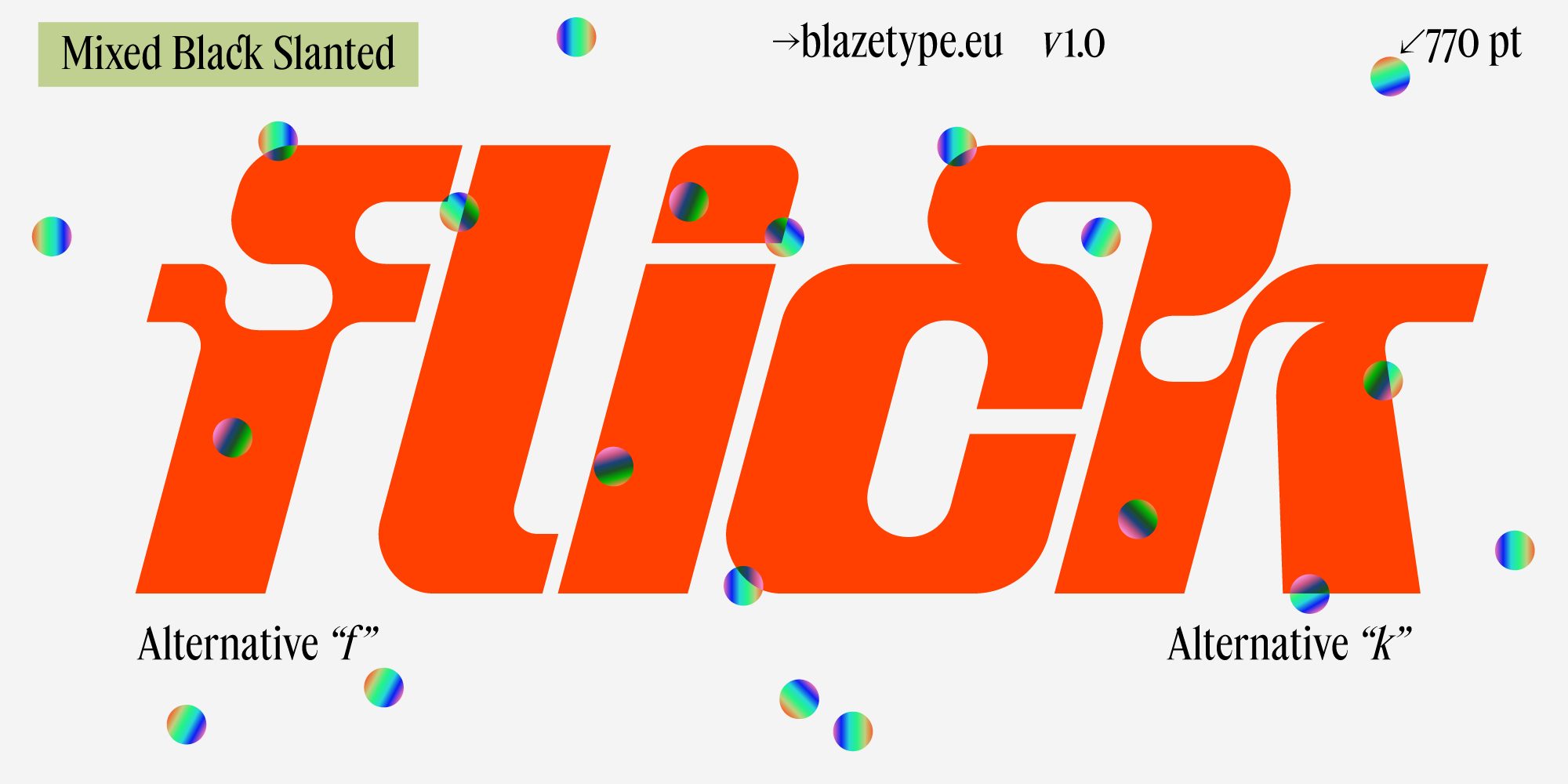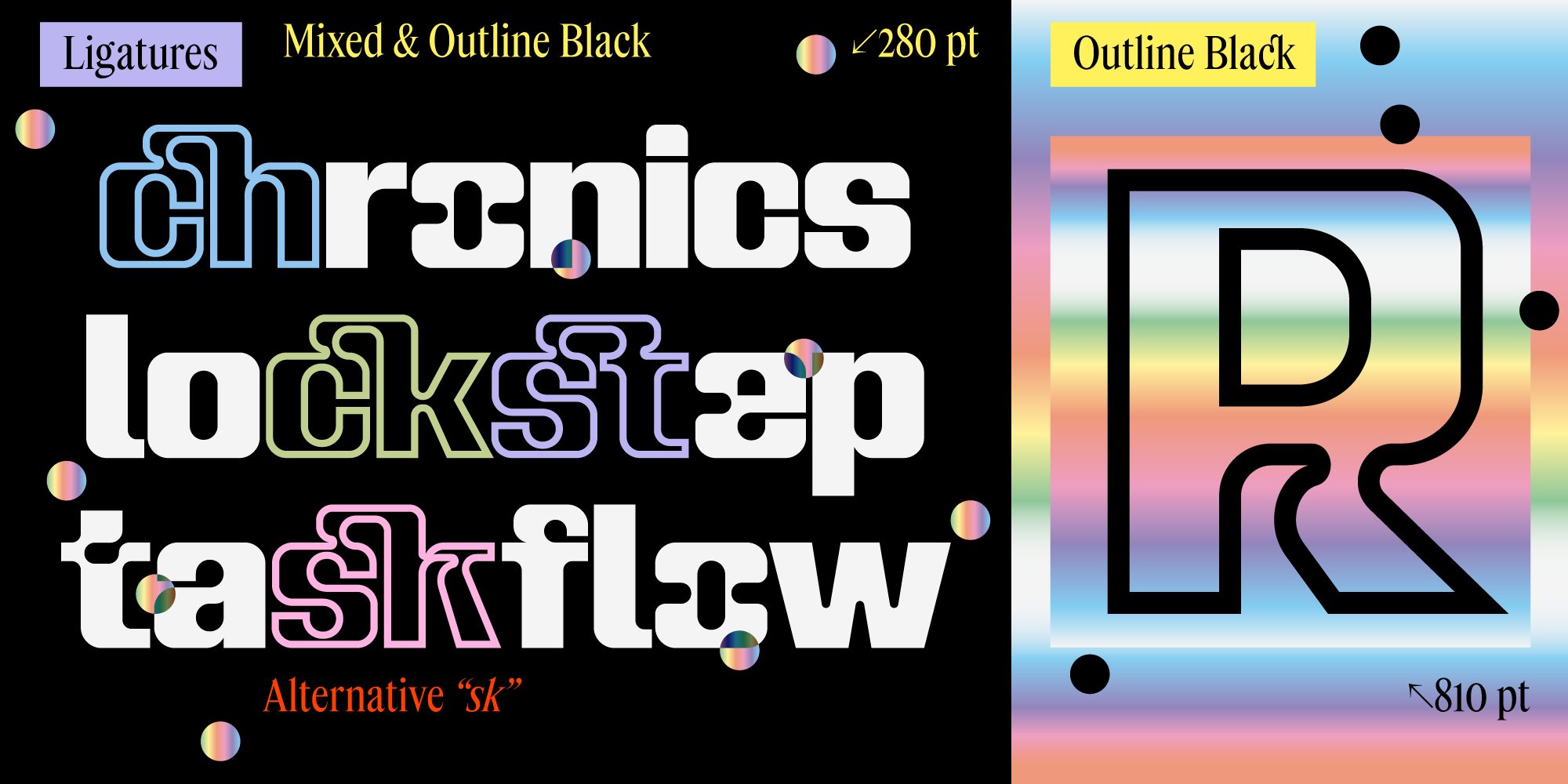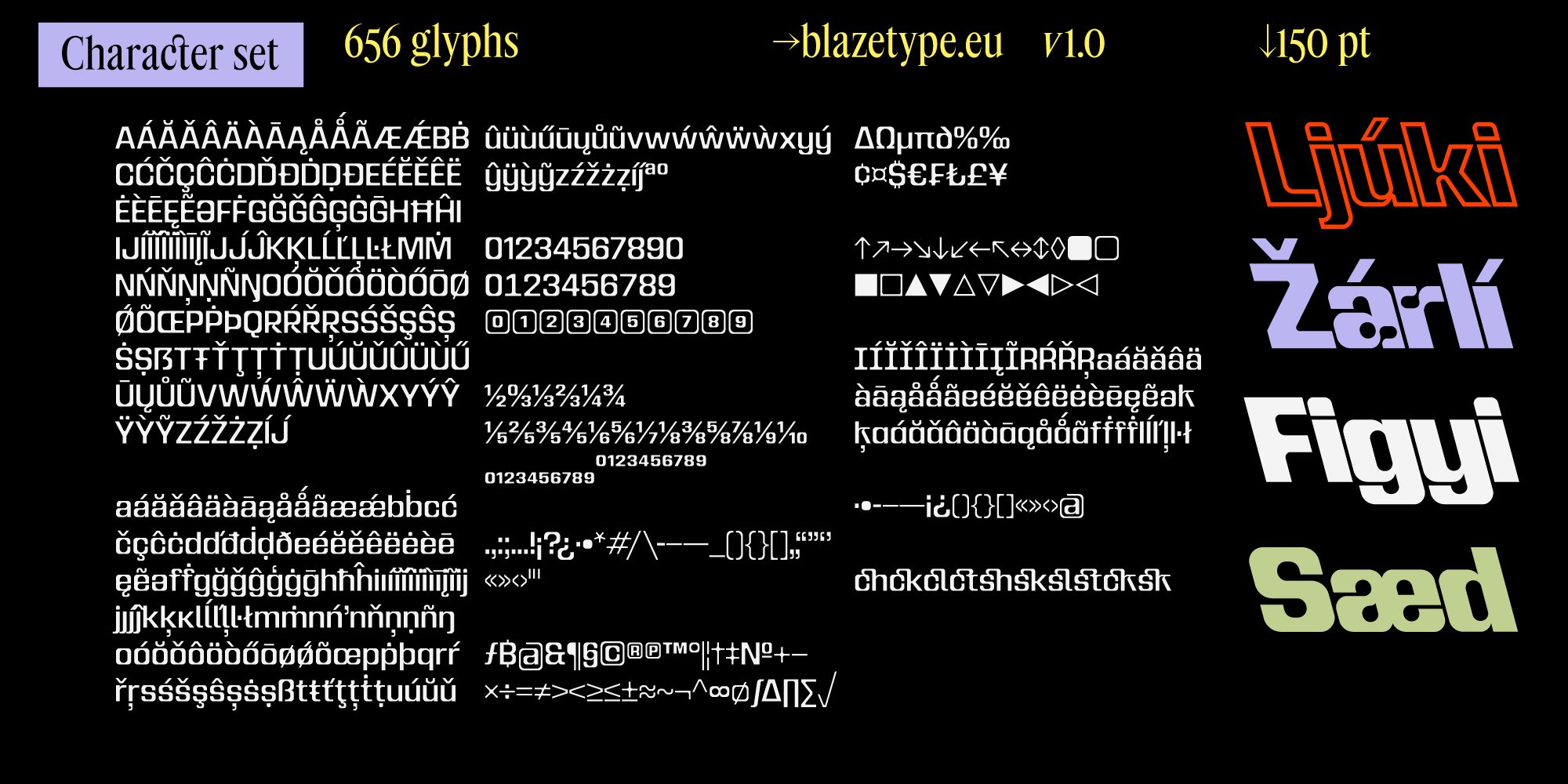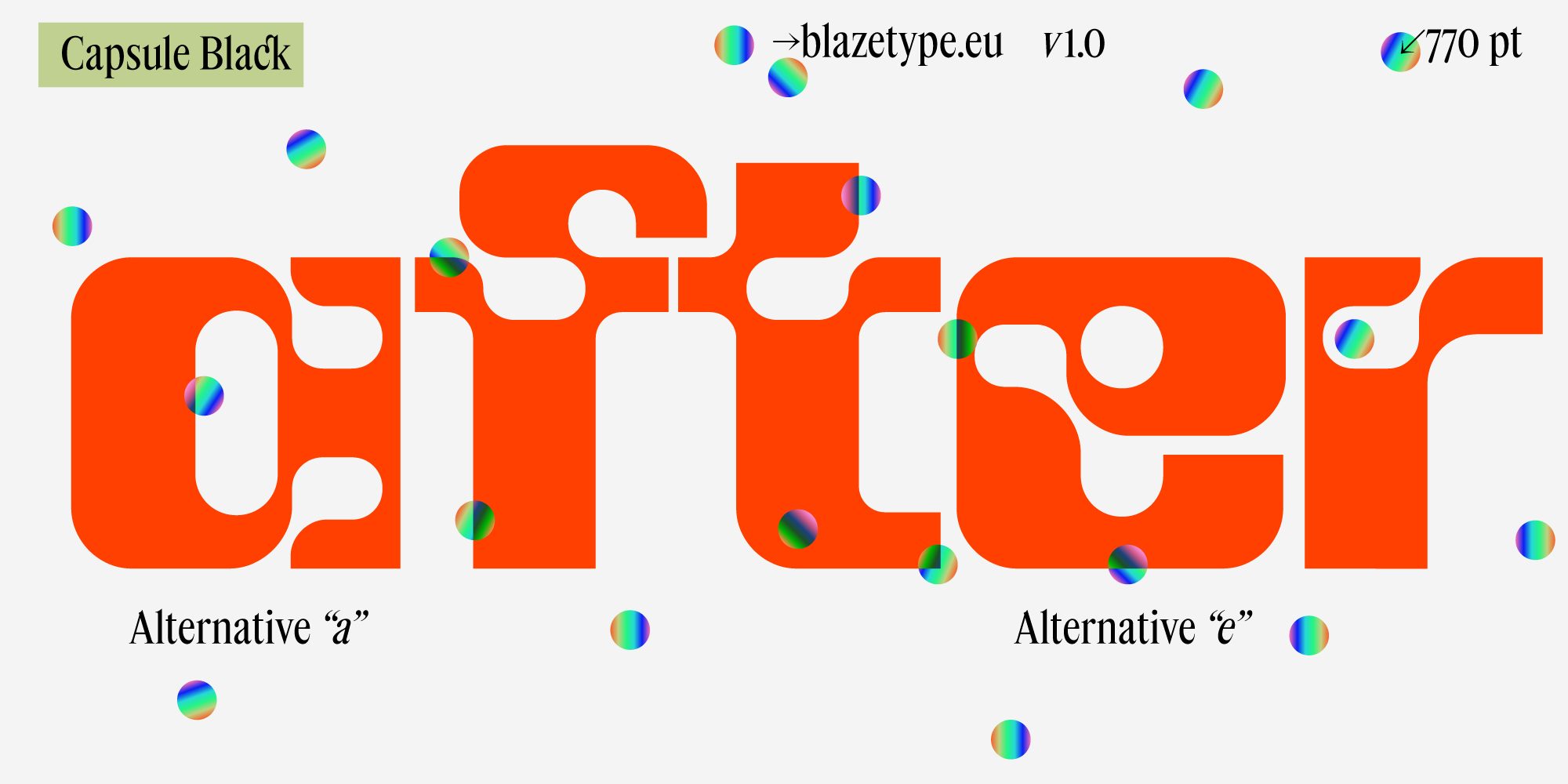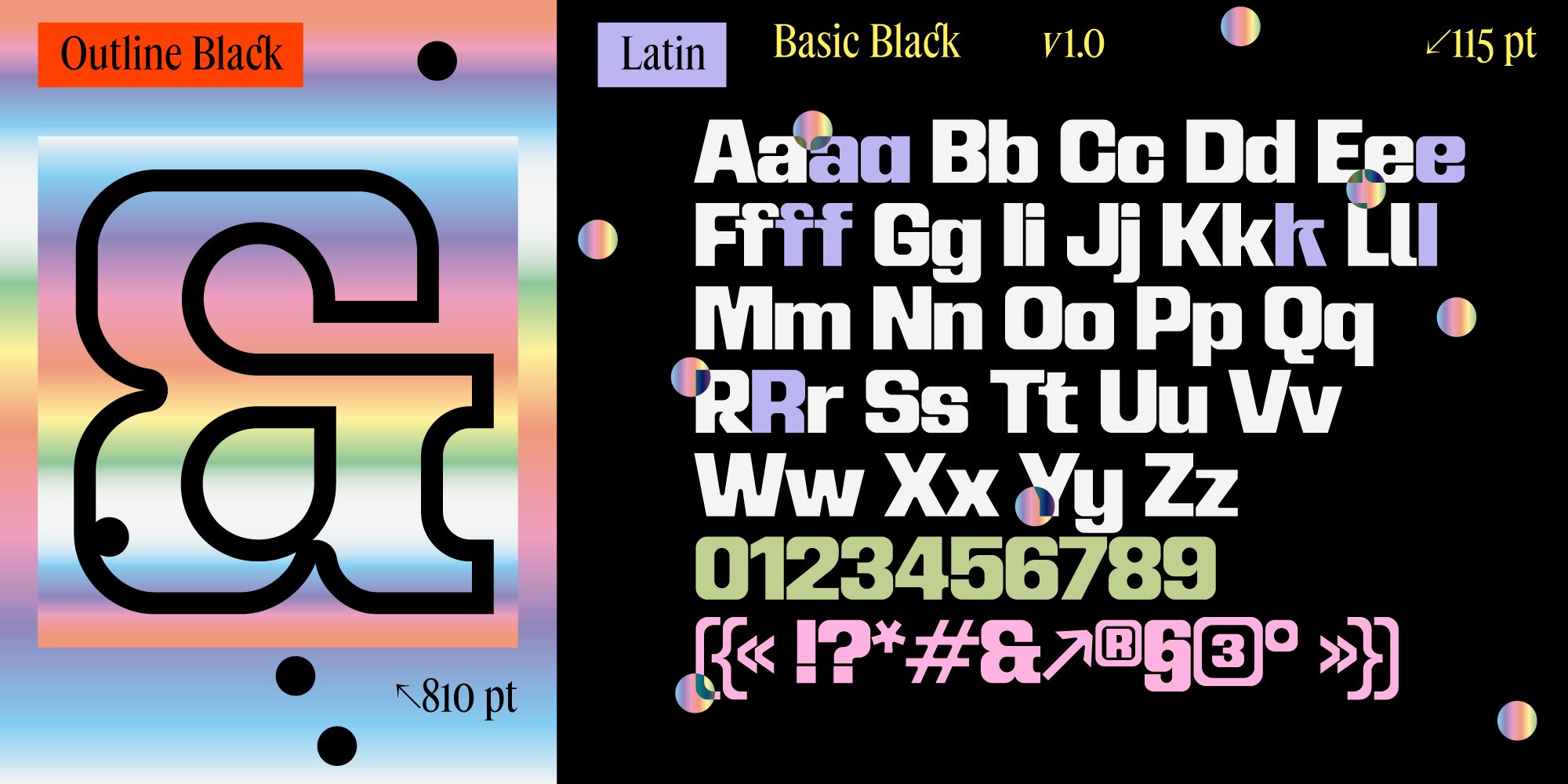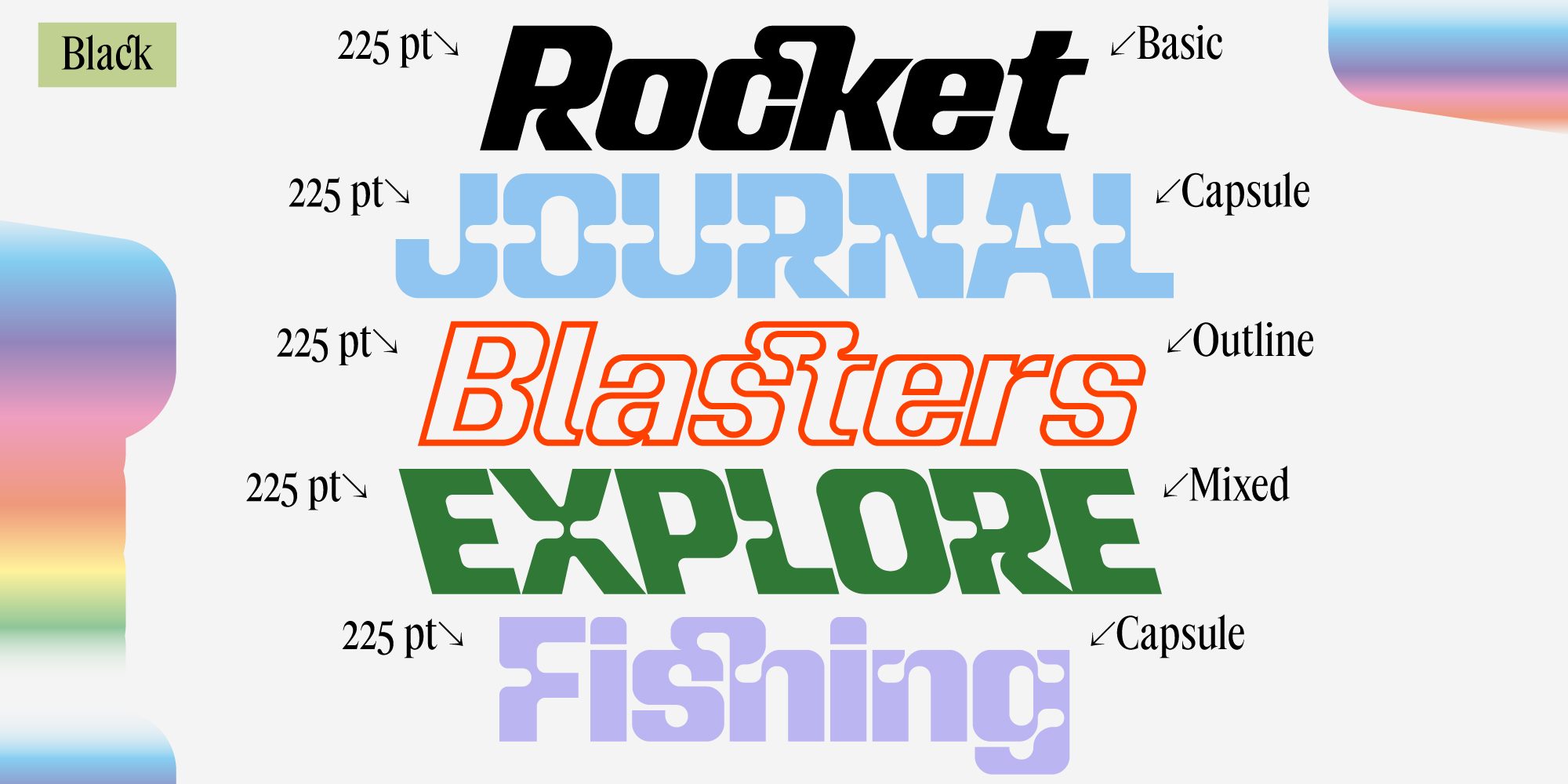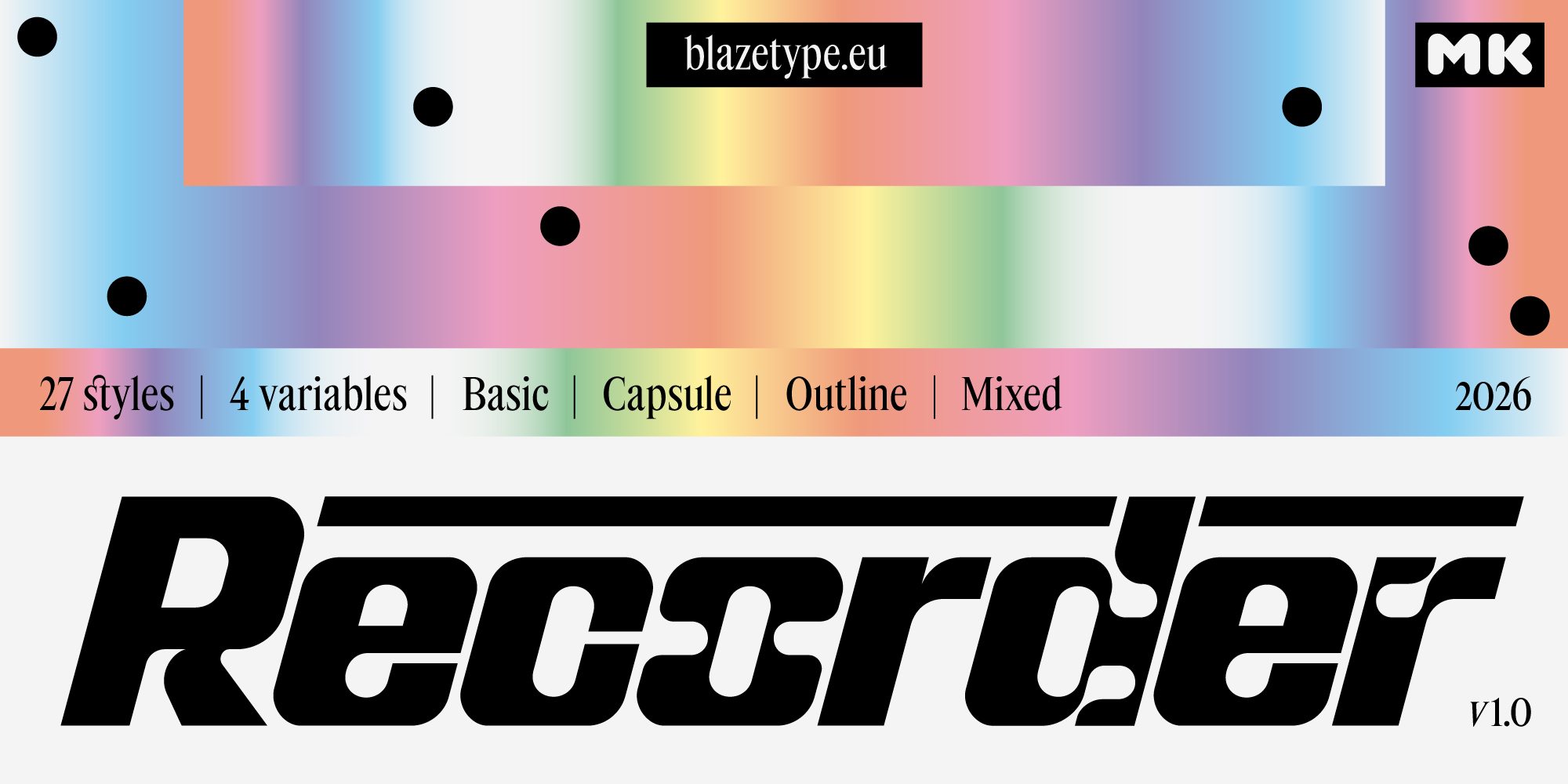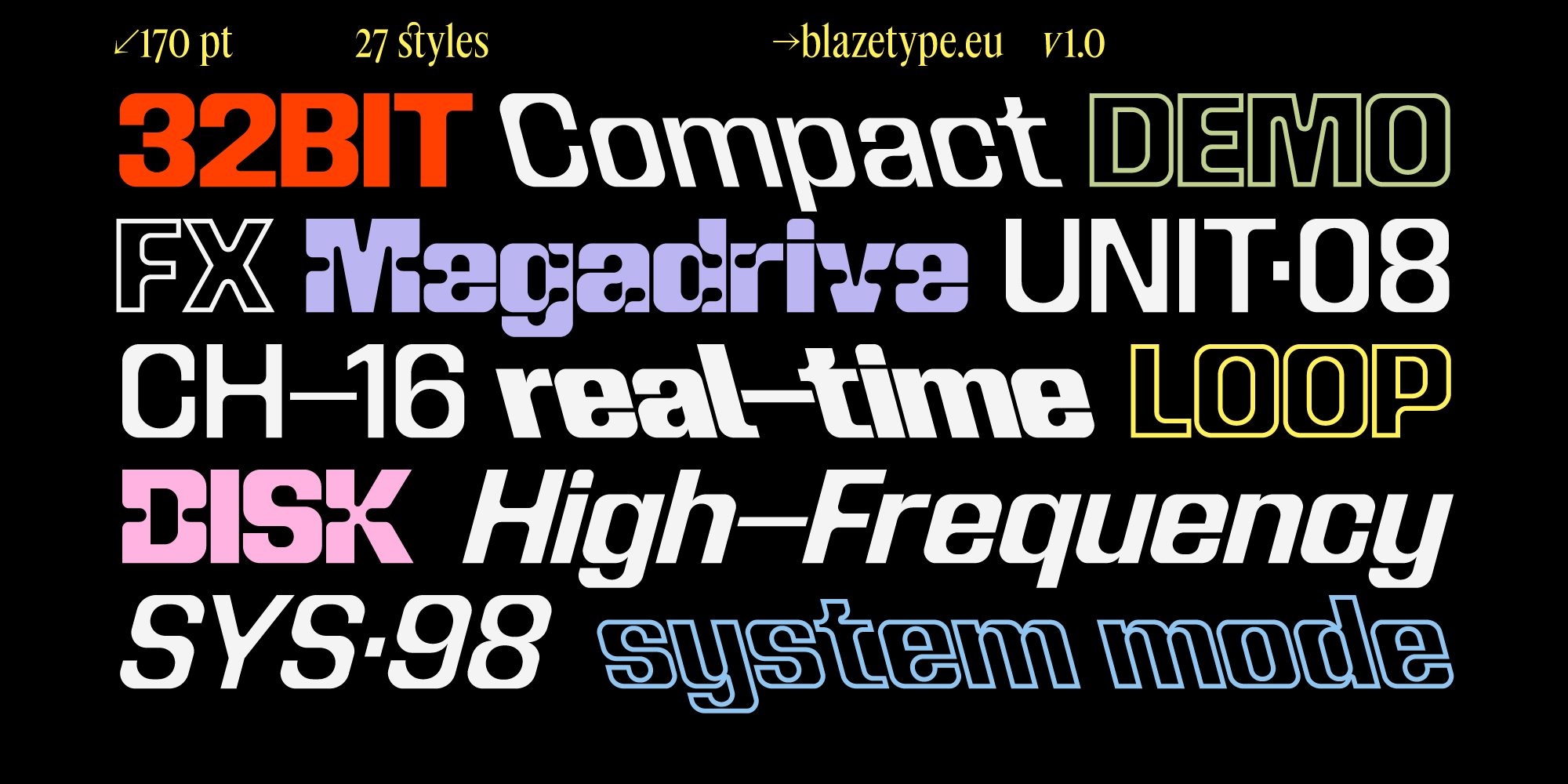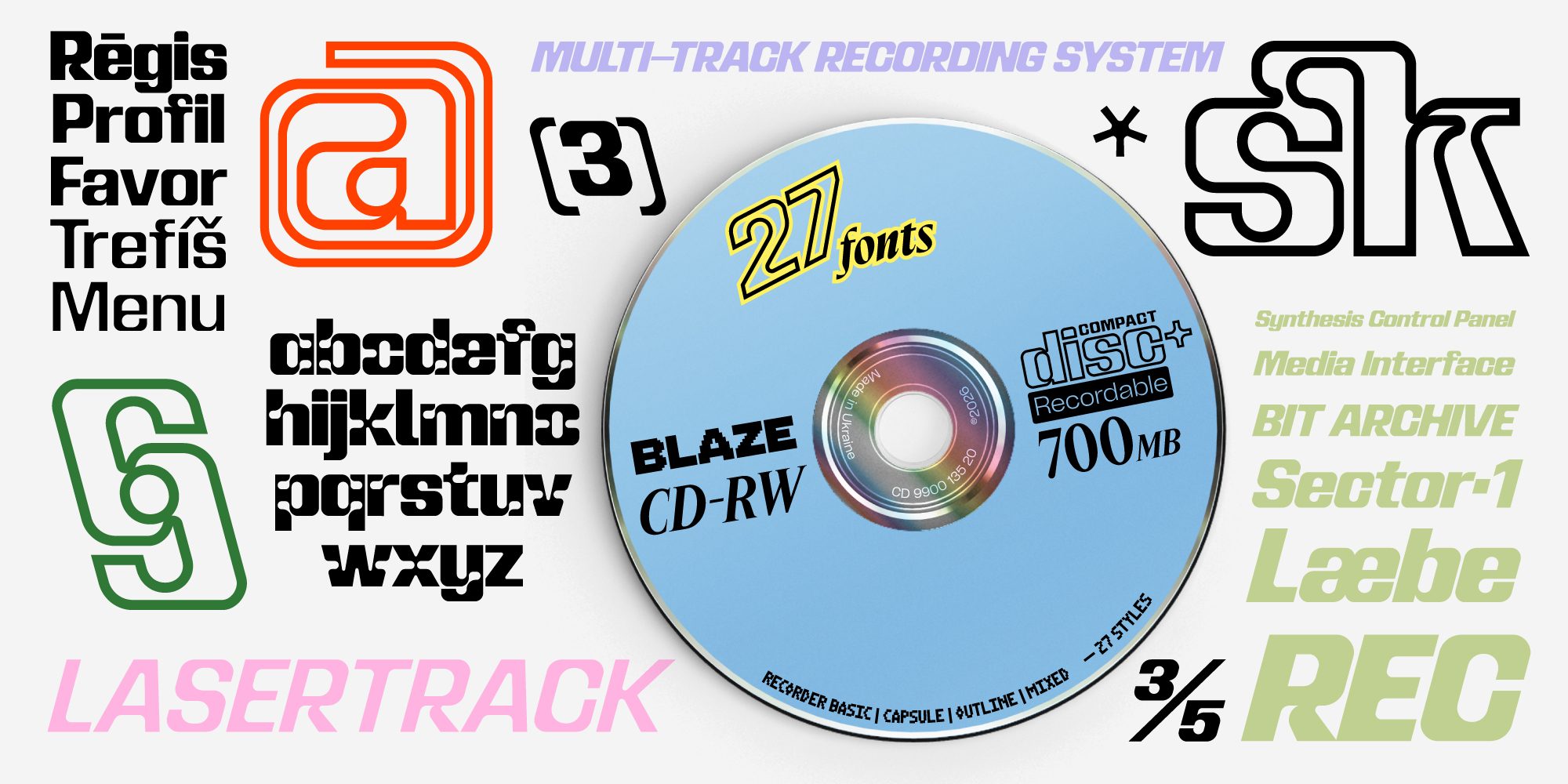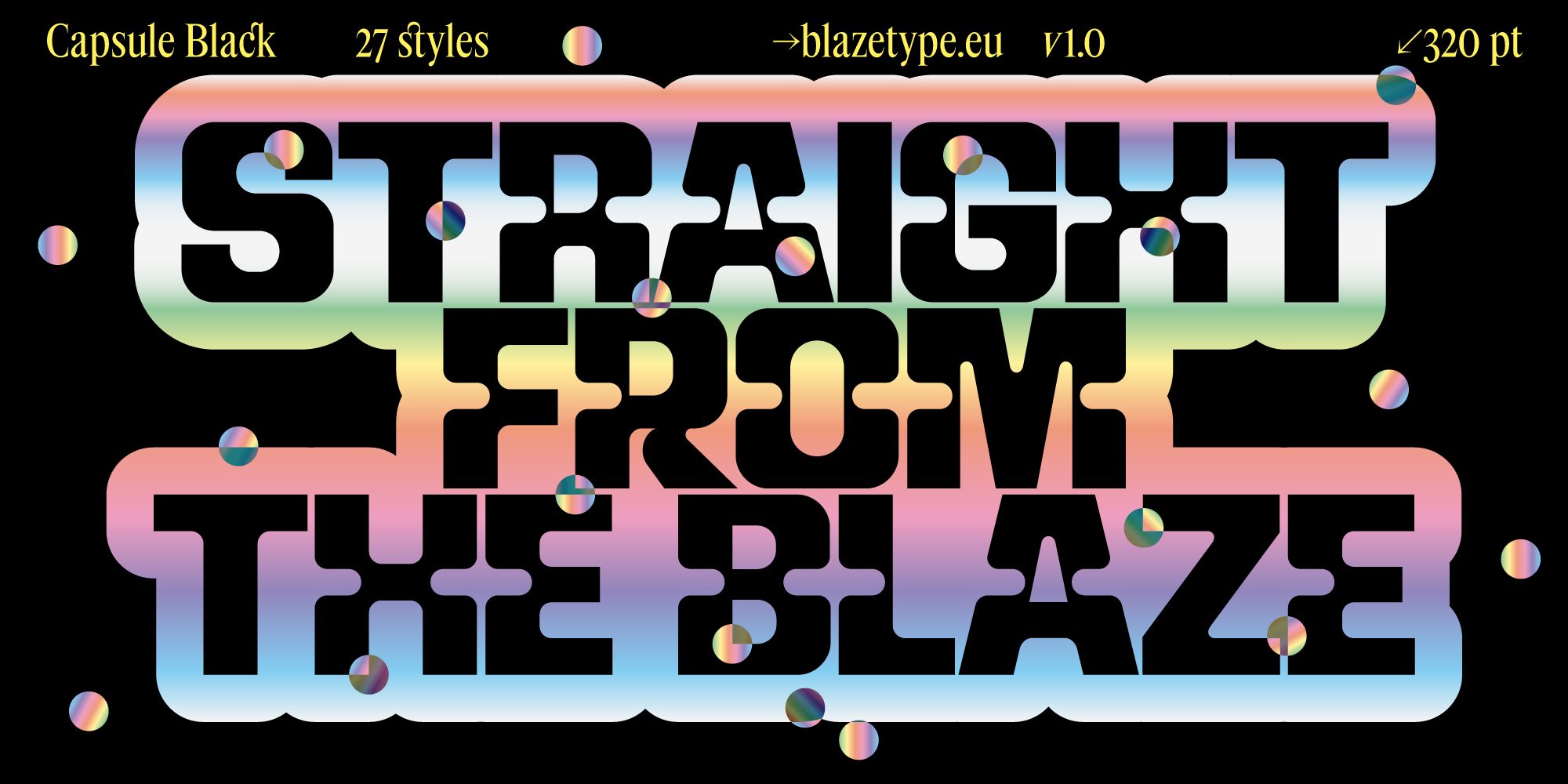
Recorder
· 4 Families
Recorder reflects an era where design, technology, and mass production began to converge — a moment at the end of the 20th century shaped by industrial graphics, mass media, and early digital culture. Its starting point was the iconic Compact Disc logo, whose strict geometry and engineered clarity defined the core logic of the design. During development, this reference expanded through industrial display fonts such as Compacta and later mechanized designs like Neographik, connecting Recorder to the tradition of late-modernist typography.
Recorder pushes geometric construction toward an almost mechanical extreme. Its letterforms are built around a deliberate contrast between inner capsule-shaped counters and outer rectangular forms with rounded corners. This interaction creates a distinct tension between softness and rigidity, precision and mass. The effect becomes especially pronounced in the italic styles, slanted at 15°, where inner shapes largely preserve their geometry, appearing rotated rather than skewed — reinforcing the non-calligraphic nature of the design.
Despite its apparent strictness, Recorder avoids simplification. Non-obvious letter constructions, and deliberate differences between uppercase and lowercase forms add depth and character. Rounded transitions on sharp angles reference chamfered lettering found on industrial objects such as stamped metal or vehicle license plates, introducing a tactile quality beneath the geometric surface.
The family consists of 4 subfamilies — Basic, Capsule, Outline, and Mixed. Basic forms the structural backbone with adjustable weight and bidirectional slant. Capsule features oversized capsule-shaped ink traps inspired by printed circuit boards and electronic components. Outline directly echoes the visual language of the Compact Disc logo. Mixed uses contextual alternates to pseudo-randomly blend Basic and Capsule forms, adding controlled variation.
Maksym Kobuzan